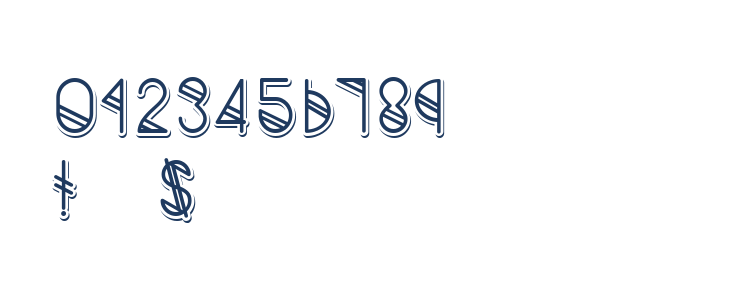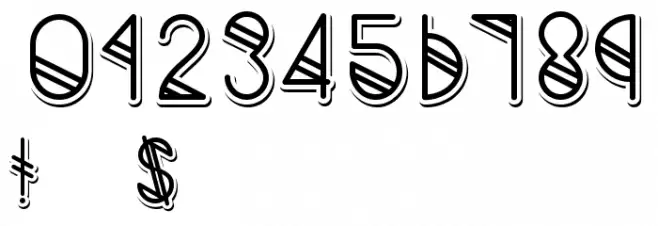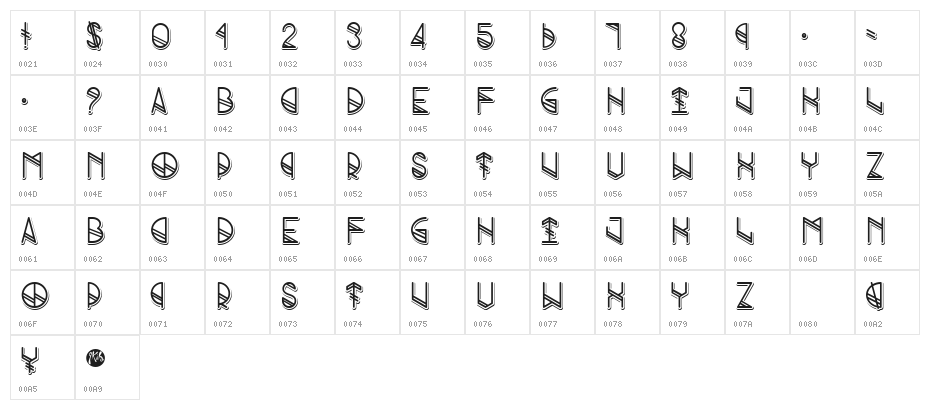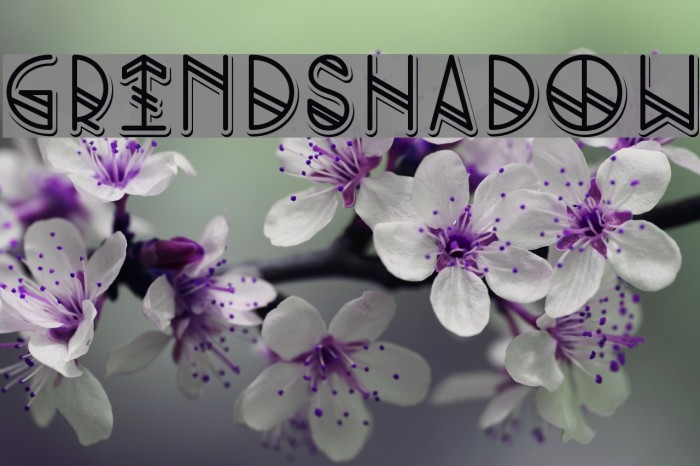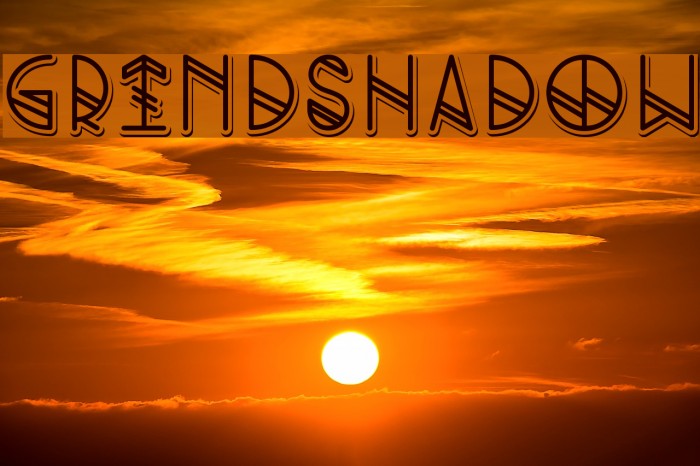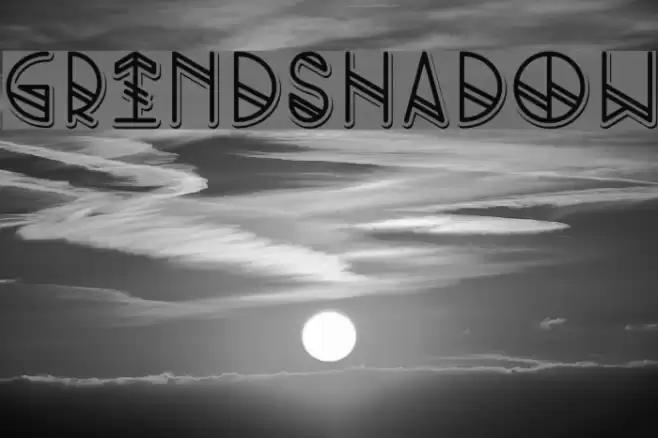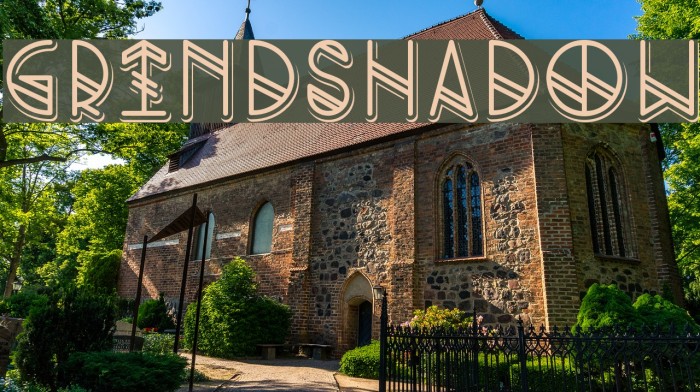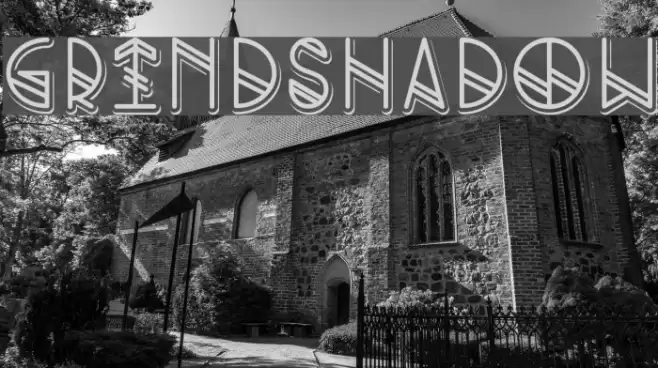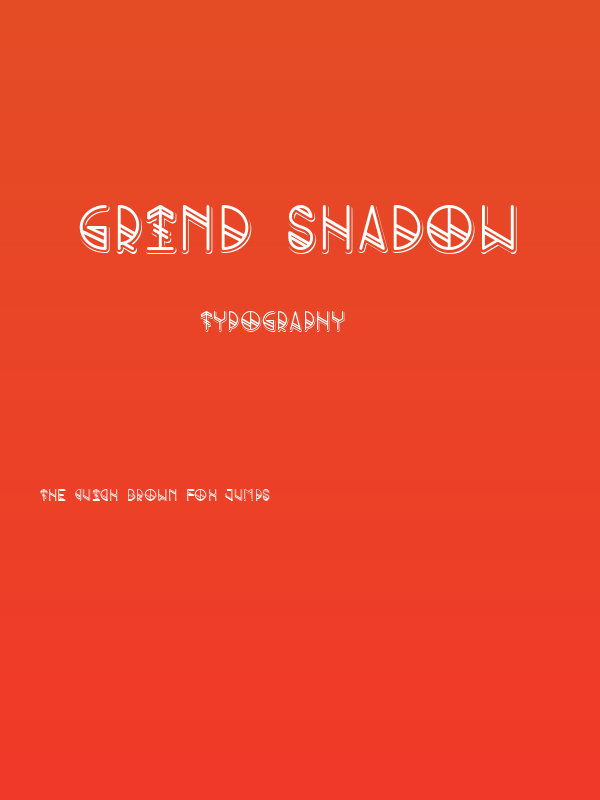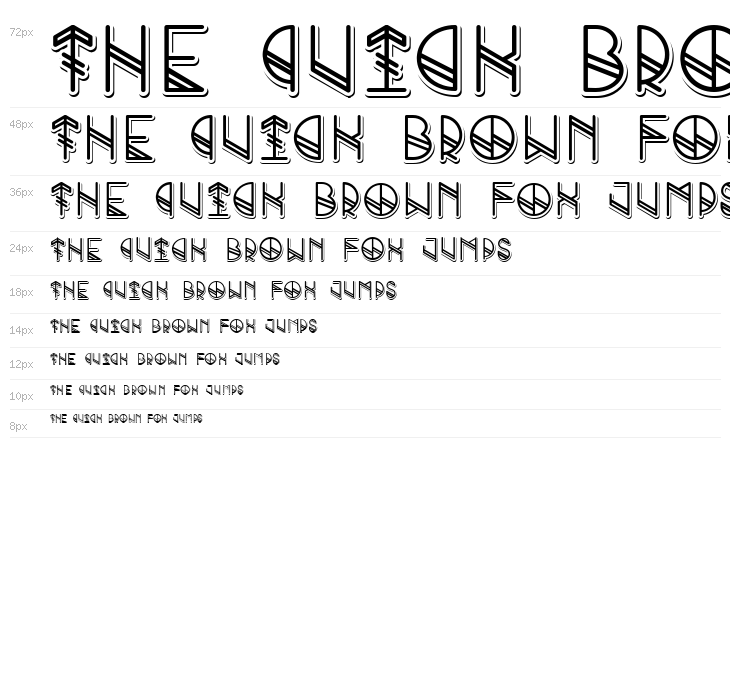
Grind shadow Font
Grind shadow Description
This font features a bold and striking design with a unique shadow effect that gives it a three-dimensional appearance. The characters are constructed with thick lines and geometric shapes, incorporating diagonal stripes that add a sense of movement and depth. The uppercase and lowercase letters maintain a consistent style, with a modern and edgy aesthetic. The numerals and special characters follow the same design principles, ensuring uniformity across the font. This font is ideal for projects that require a bold statement and a contemporary look.
| Proposed Projects | Perfect for branding, posters, album covers, and any design that needs a bold, modern touch. |